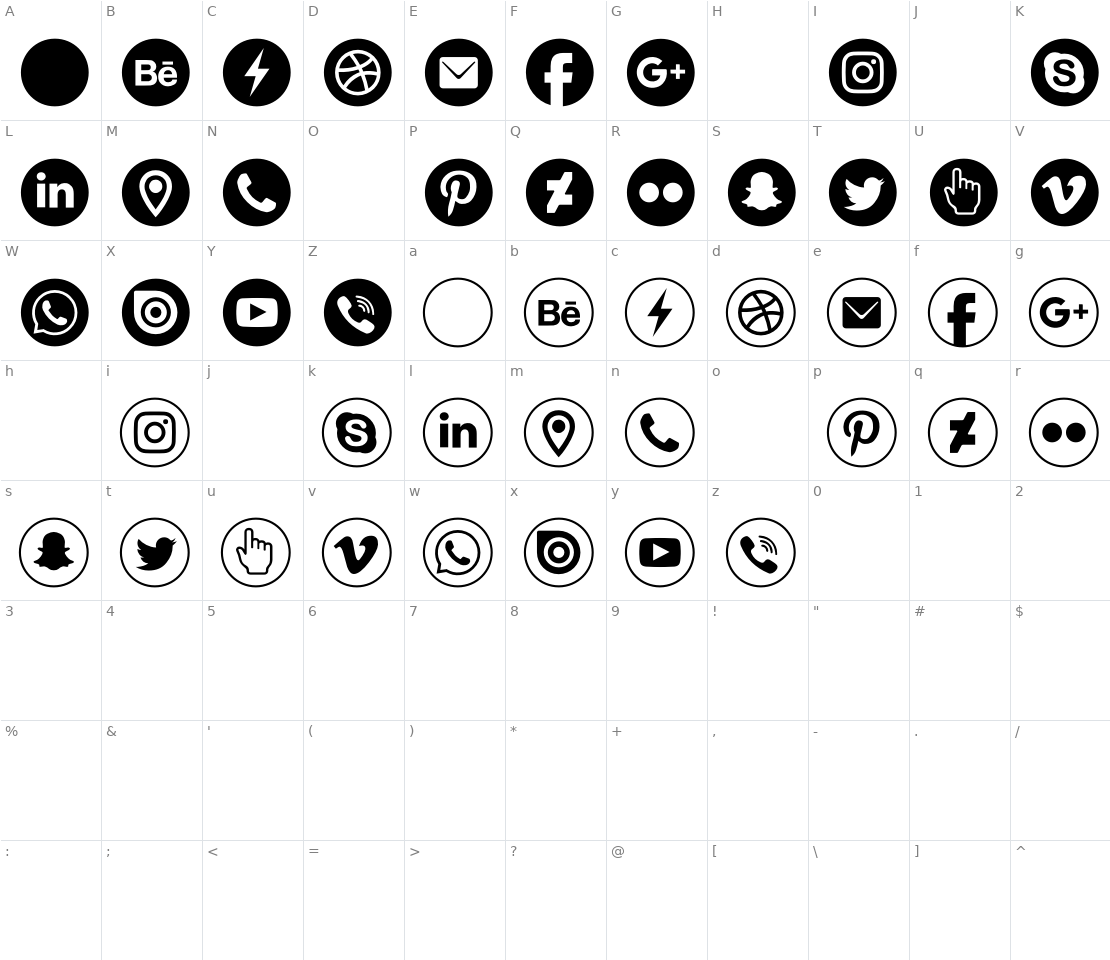
Typeecon
by Leovm
Typeecon is an icon font by Leovm featuring clean, circular social media and interface symbols designed for web and UI use. Each glyph sits inside a consistent round container, keeping things visually unified across buttons, navigation bars, and digital layouts. It's a utility font rather than a typographic one, built to drop recognizable platform icons into projects without needing separate image assets.